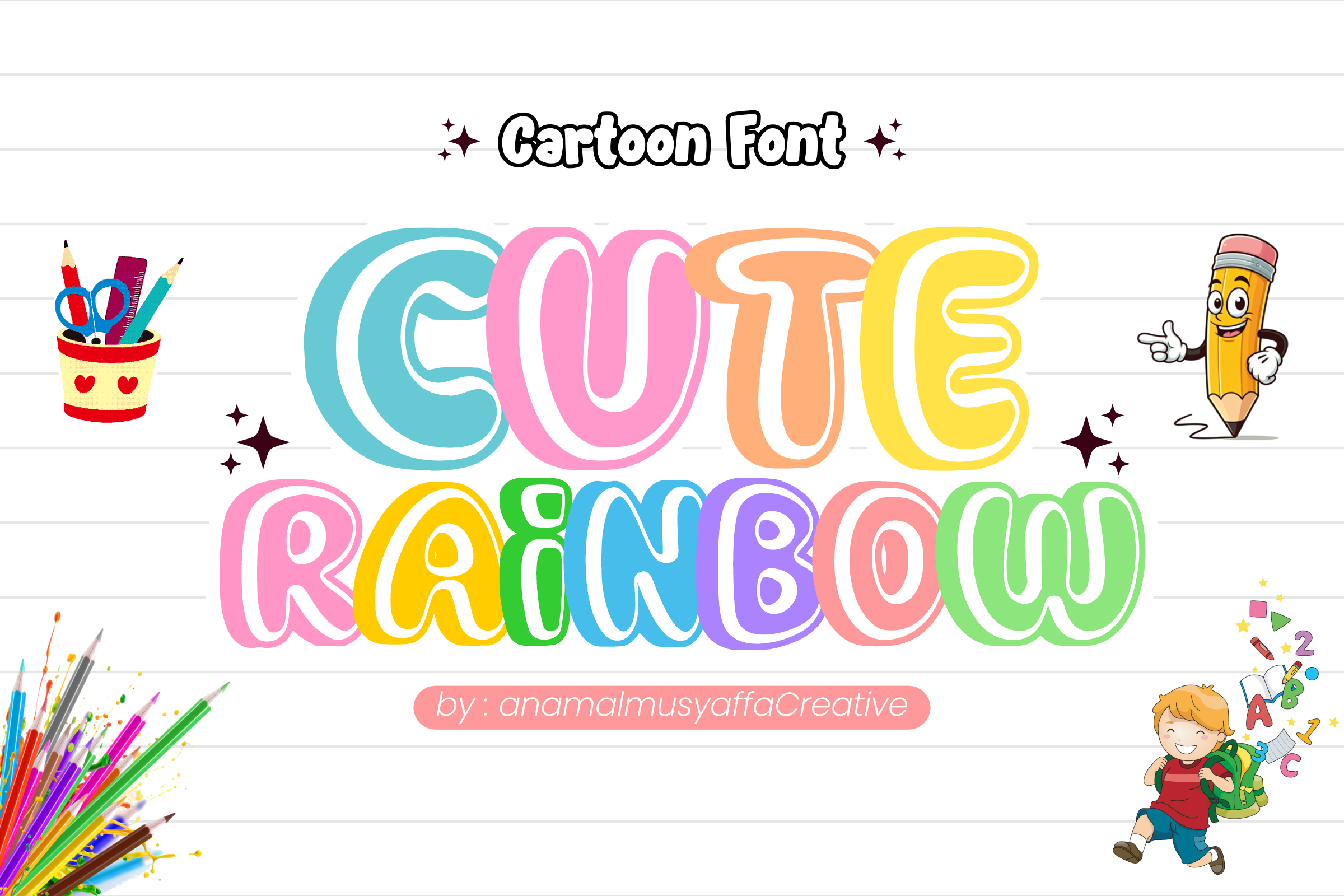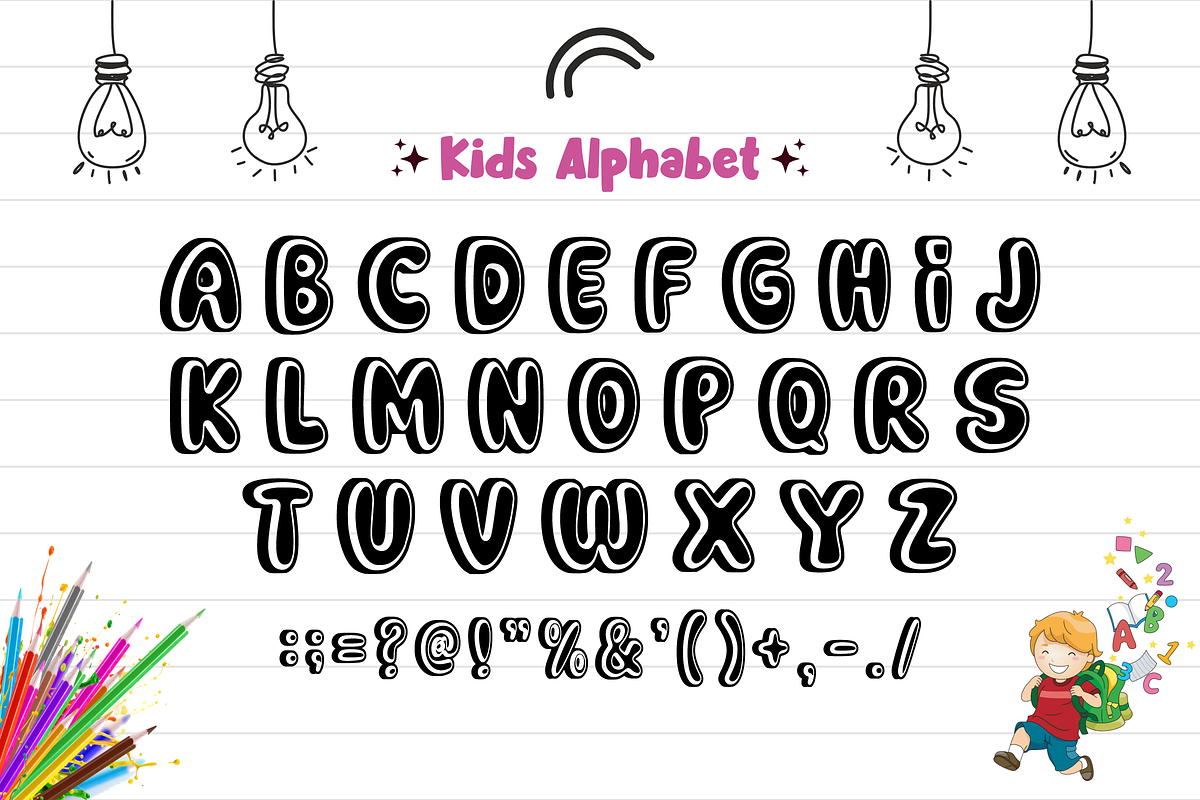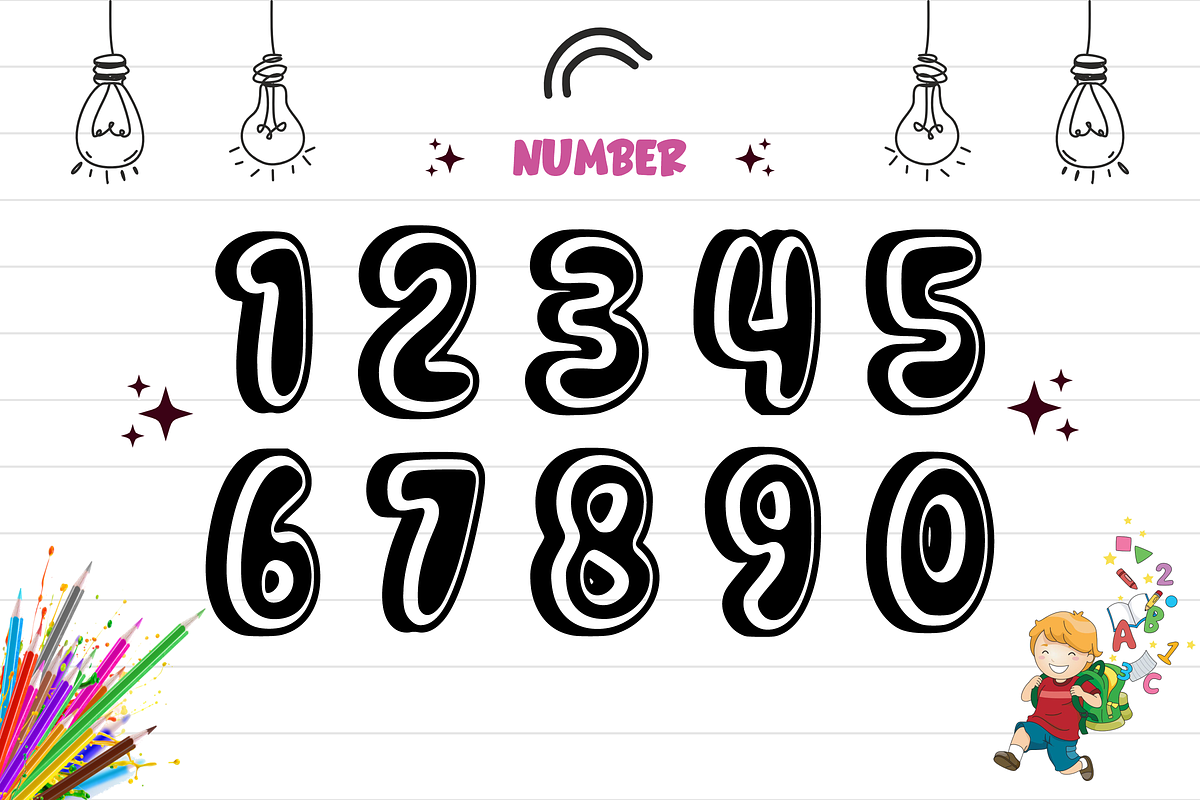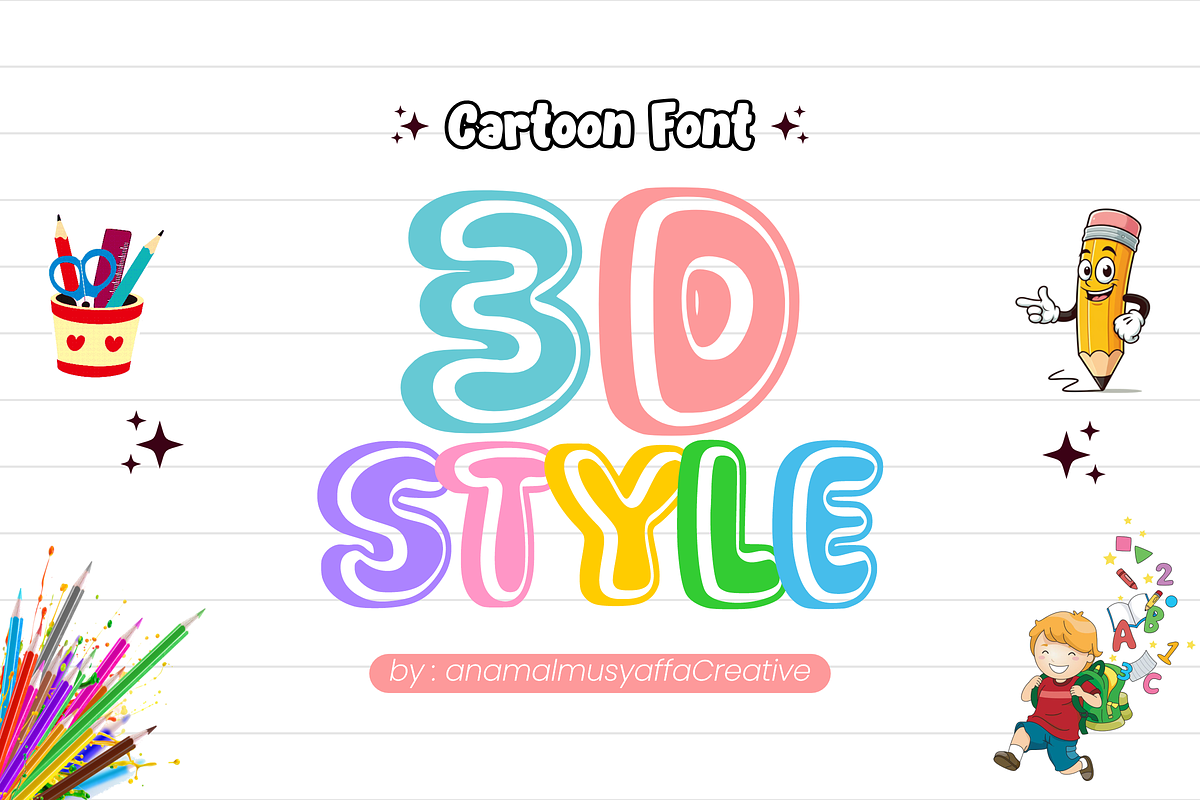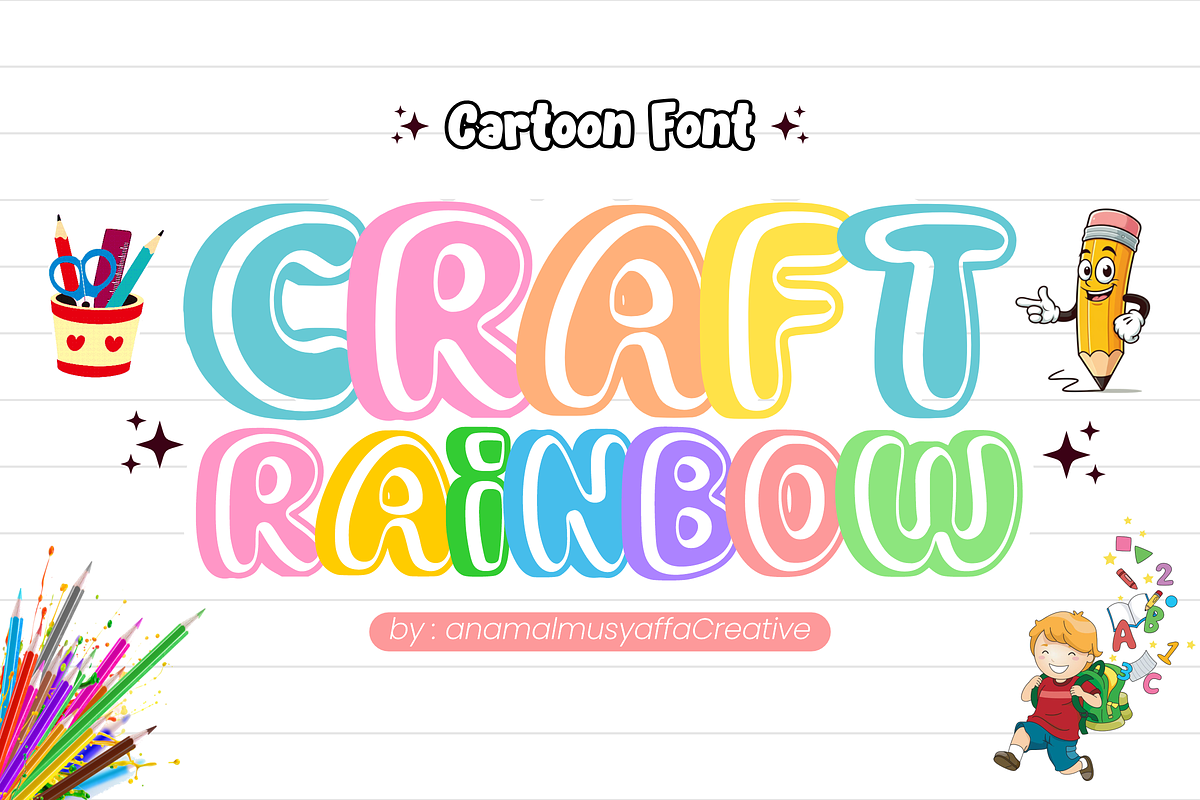
Cute Rainbow - Display Font
🌈 Cute Rainbow: Vibrant & Bouncy Display Font ✨ Brighten up your creative world with Cute Rainbow! This adorable cartoon font features extra-chunky, rounded letterforms with a playful white inline detail that creates a soft, bubbly 3D effect. Designed to be as cheerful as a rainbow, it brings a high-energy, "pop" factor to any design.
Its bold silhouette and friendly, modern aesthetic make it the perfect choice for projects that need to be eye-catching, approachable, and full of joy!
Main Features:
🔠Uppercase Alphabet – Bold, bouncy characters that stand out.
🔢 Matching Numeric Set – Playful numbers perfect for birthday designs.
🎨 Simple Symbols – Essential punctuation for a complete look.
🎂 Kids' Birthday Invitations & Party Decor
🧸 Toy Packaging & Playful Branding
👕 Children’s Apparel & Colorful Merchandise
📚 Storybooks & Classroom Posters
📱 Vibrant Social Media Graphics & YouTube Thumbnails